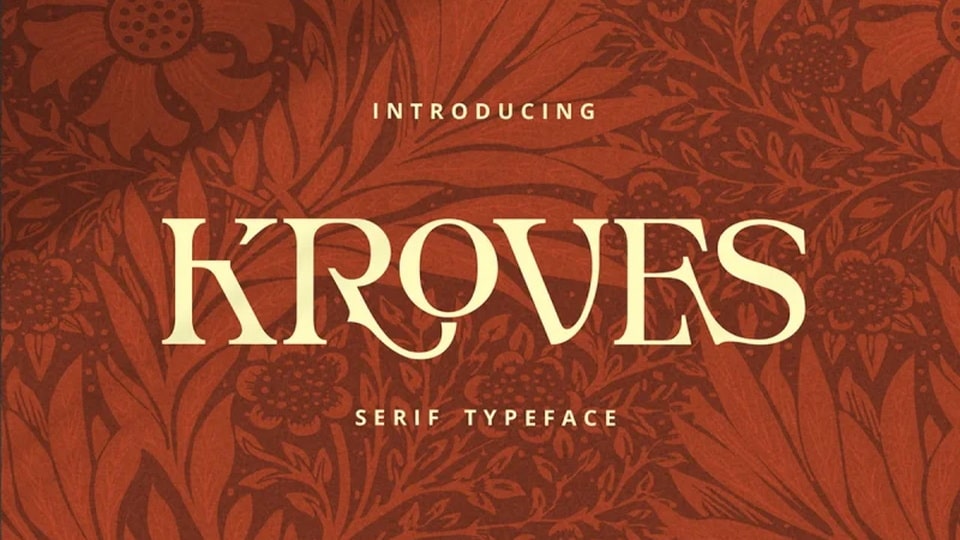
Download Kroves font, an exquisite regular serif typeface that exudes elegance and sophistication with its meticulously crafted letterforms and unique ligature pairs.